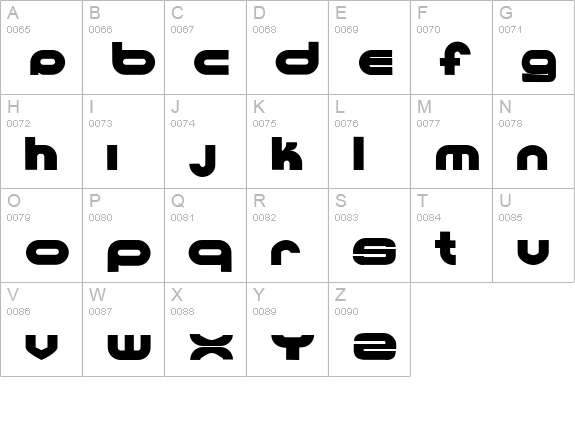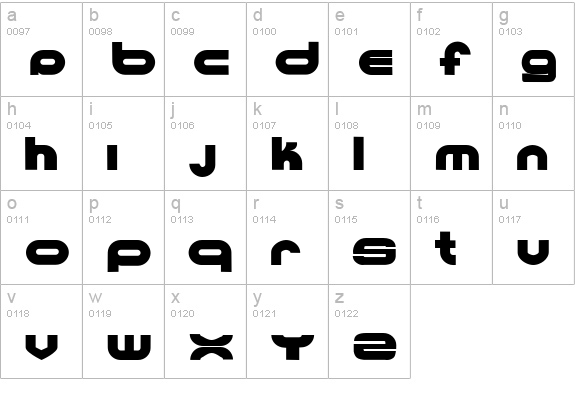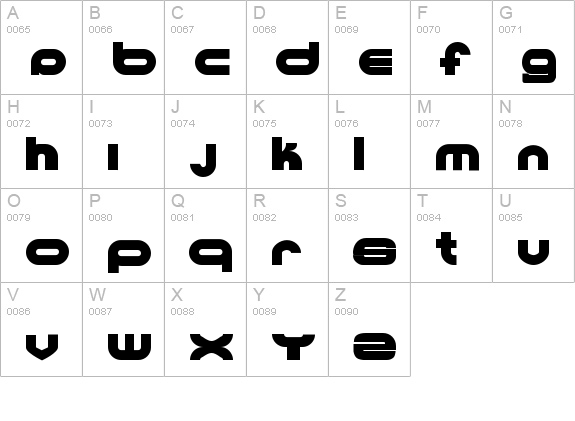
Ultraworld black Font Details
Ultraworld black is a maximum-weight, dramatic variant in the Ultraworld typeface family \xE2\x80\x94 well suited to maximum-impact headlines, posters, and packaging.
Introducing Ultraworld Black Font, a striking and captivating typeface that exudes modernity and sophistication. This bold and powerful font is perfect for making a bold statement in your designs, capturing attention and leaving a lasting impression. Ultraworld Black Font features sleek and geometric letterforms with clean lines and sharp edges, giving it a contemporary and edgy look. Its strong presence on the page demands attention and commands authority, making it ideal for headlines, logos, posters, and any design that requires a touch of drama. But what sets Ultraworld Black Font apart is not just its impressive aesthetic appeal, but also its accessibility. This incredible font is available for free download at FontsMarket.com, allowing designers and creatives of all levels to unleash their creativity without any constraints. Whether you're a seasoned professional or a budding designer, Ultraworld Black Font offers endless possibilities and versatility. Its timeless design and bold character make it suitable for a wide range of projects, from branding and packaging to editorial and web design. With its inclusion of uppercase and lowercase letters, numbers, and punctuation marks, this font provides everything you need to bring your ideas to life with style and impact. So why wait? Download Ultraworld Black Font for free at FontsMarket.com and elevate your designs to new heights. Let this remarkable font become your creative ally, empowering you to stand out from the crowd and make a lasting impression. Experience the freedom and creativity that Ultraworld Black Font brings, and unlock the full potential of your designs today.